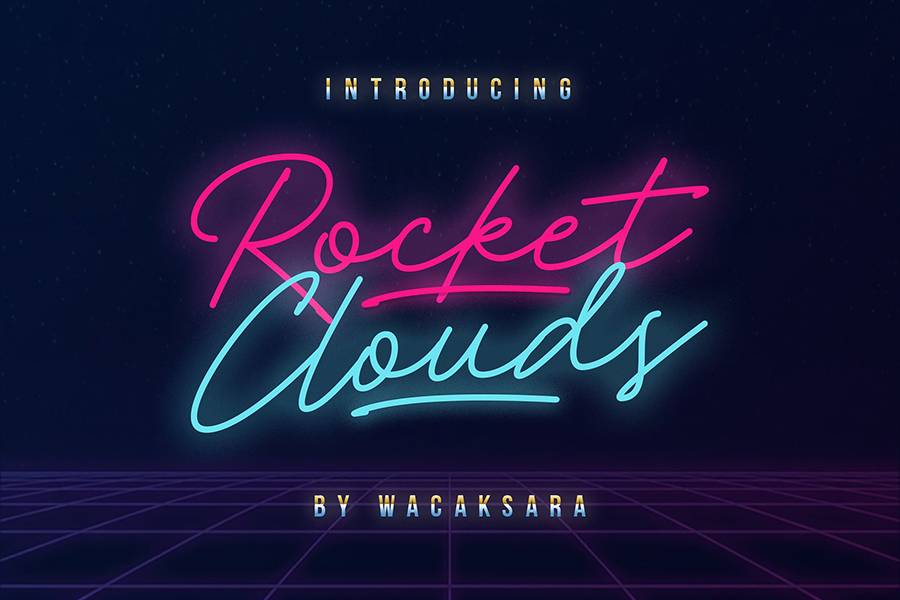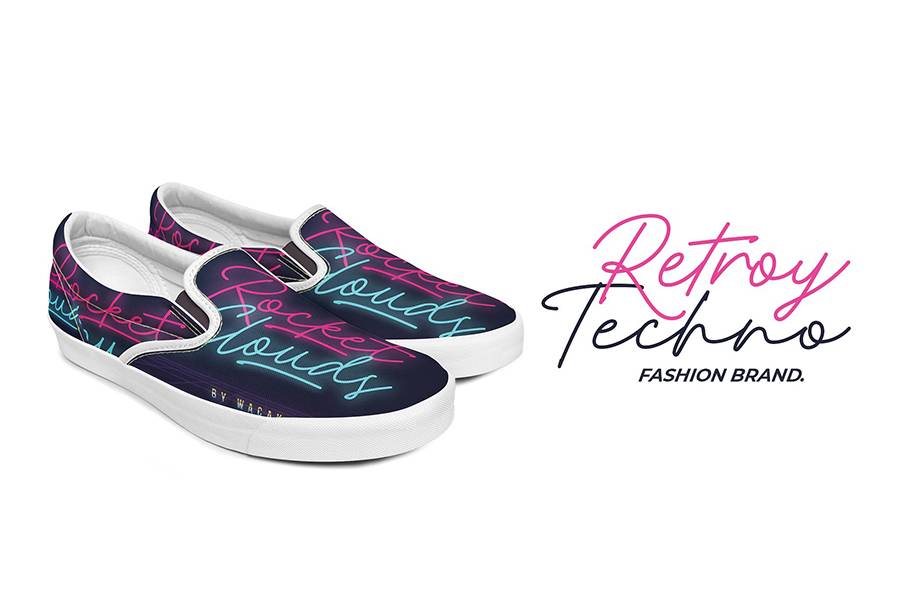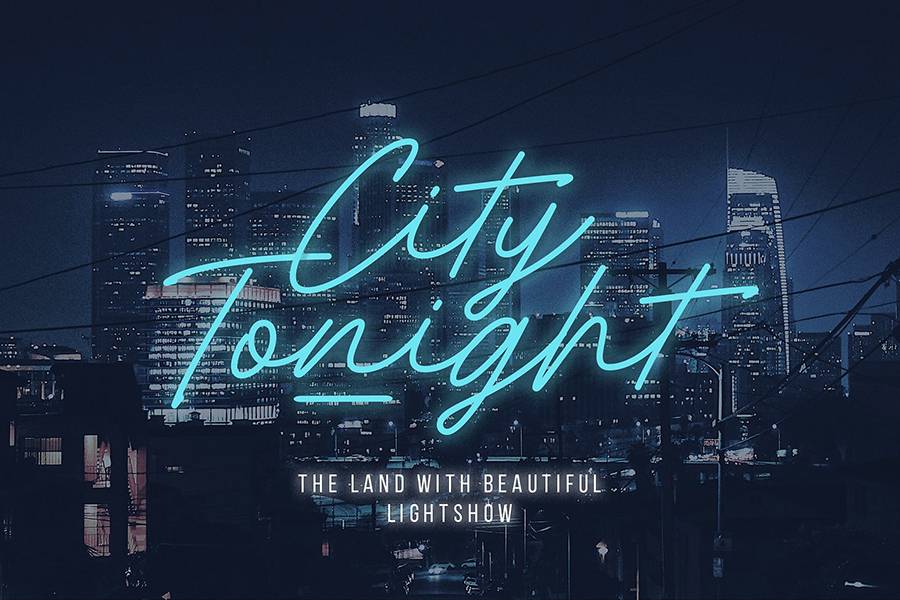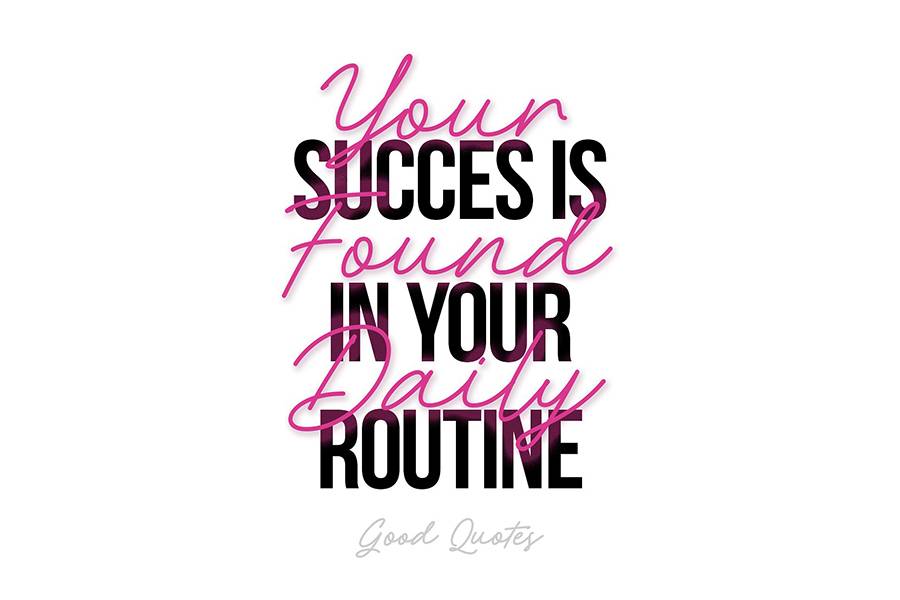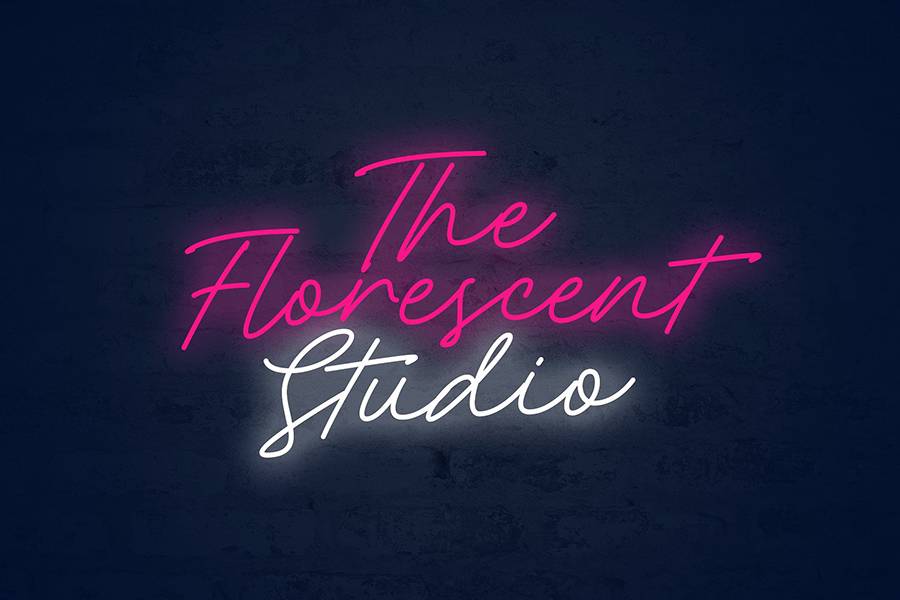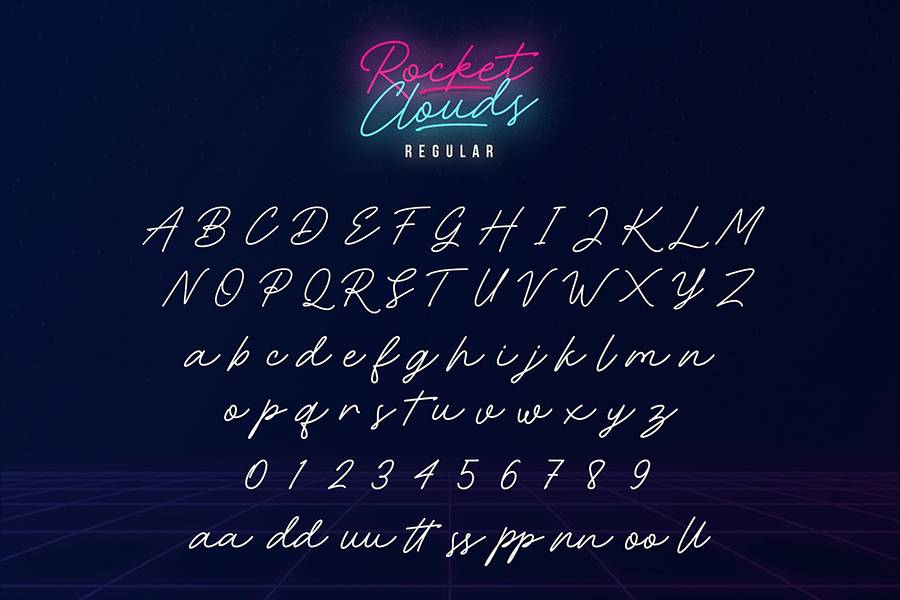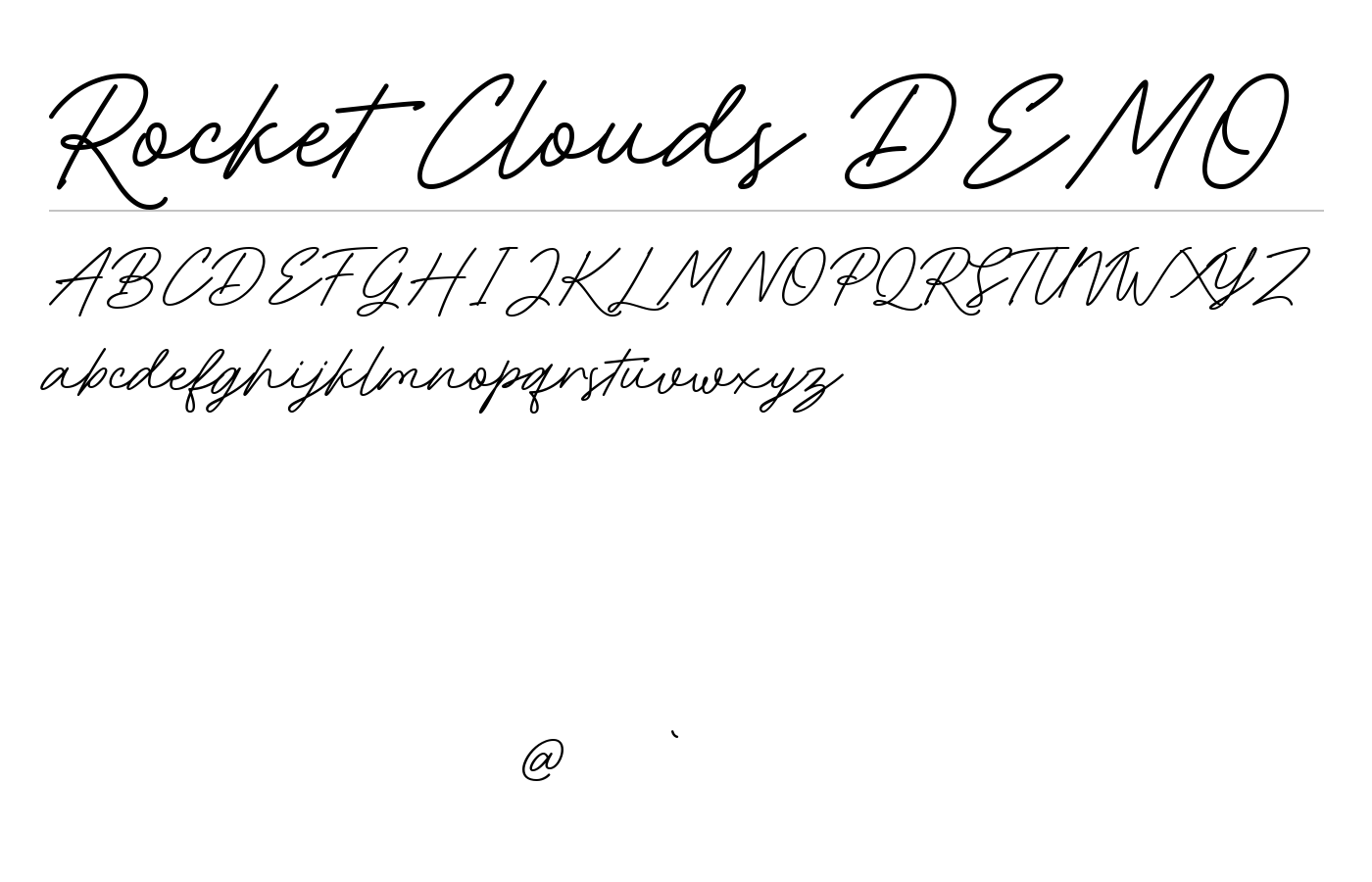
Rocket Clouds is a delicate, handwritten script font with a light and airy feel. Its smooth, flowing lines and subtle slant lend a personal, elegant touch that works well for invitations, branding, and creative projects seeking a warm, approachable style. This font shines best in display use where its graceful character can add charm and sophistication.
Rocket Clouds Font Demo